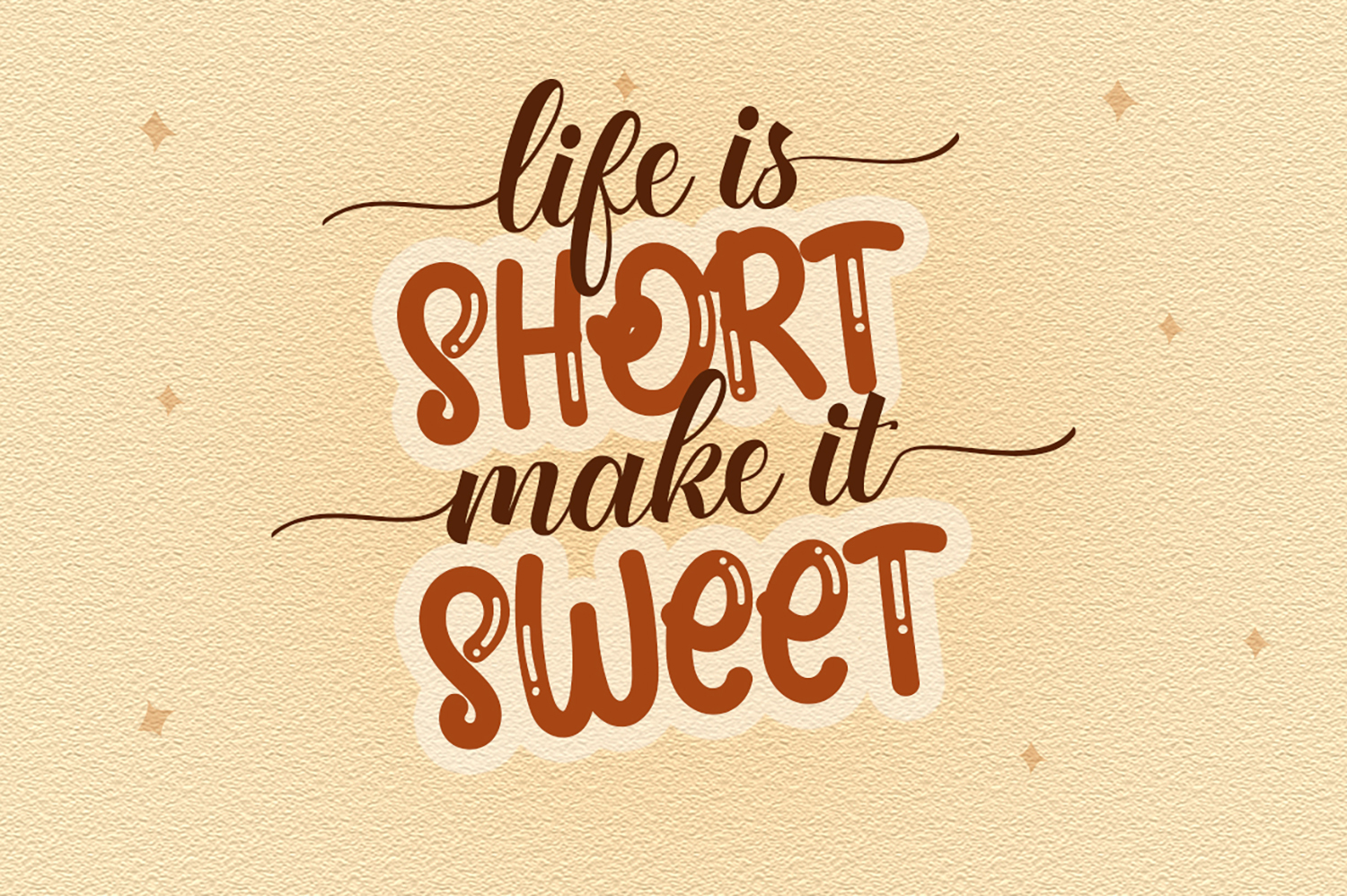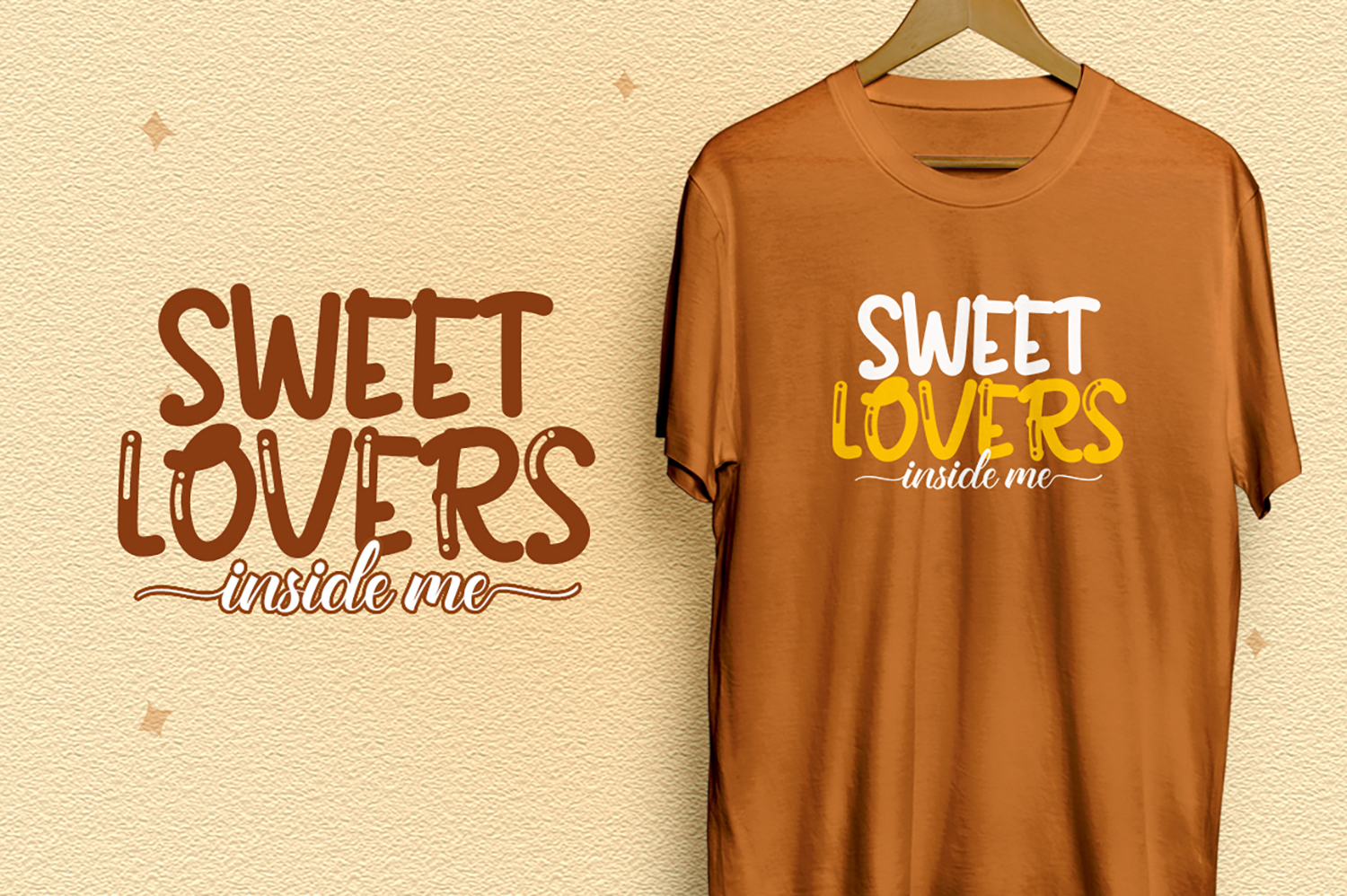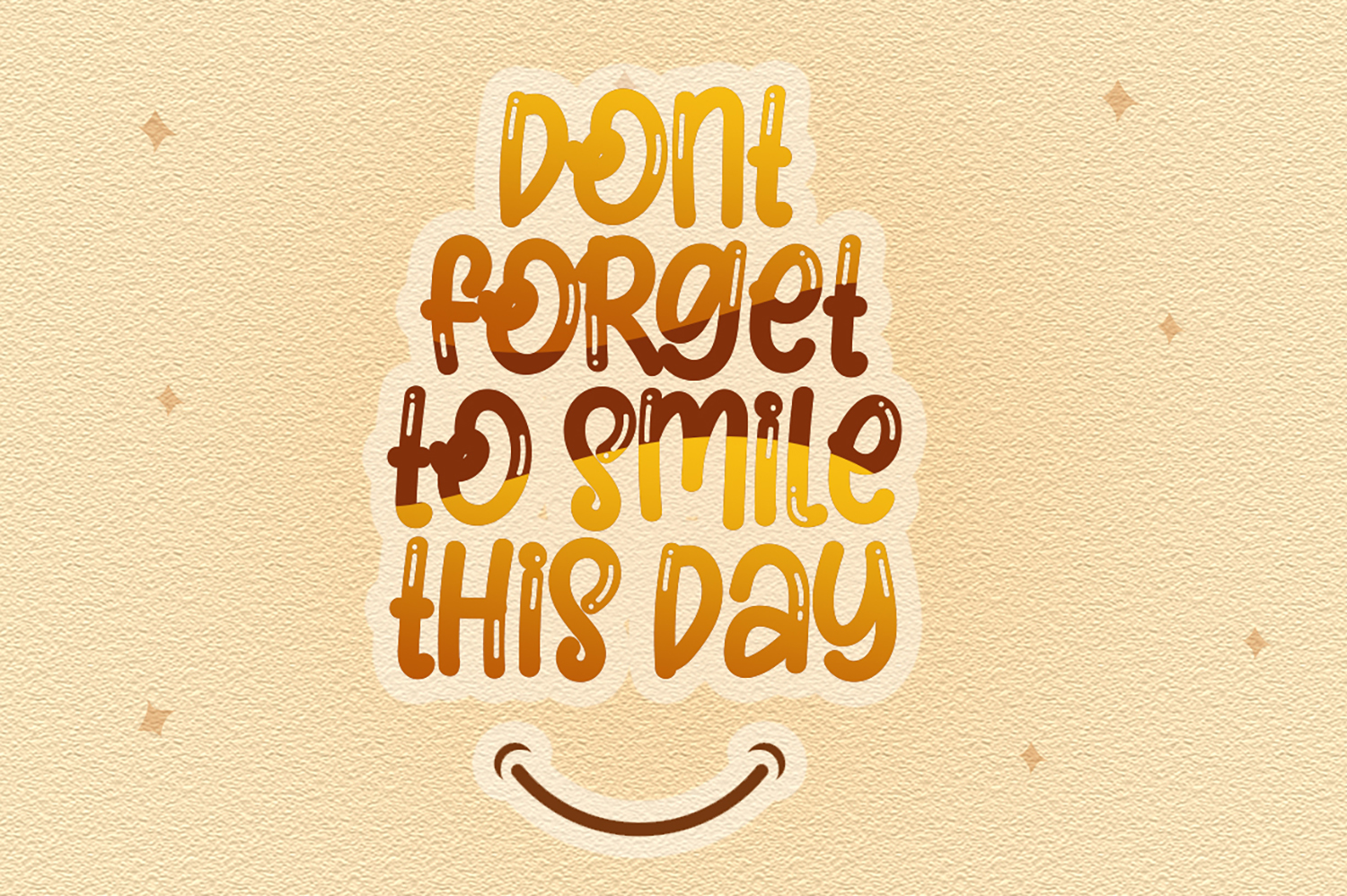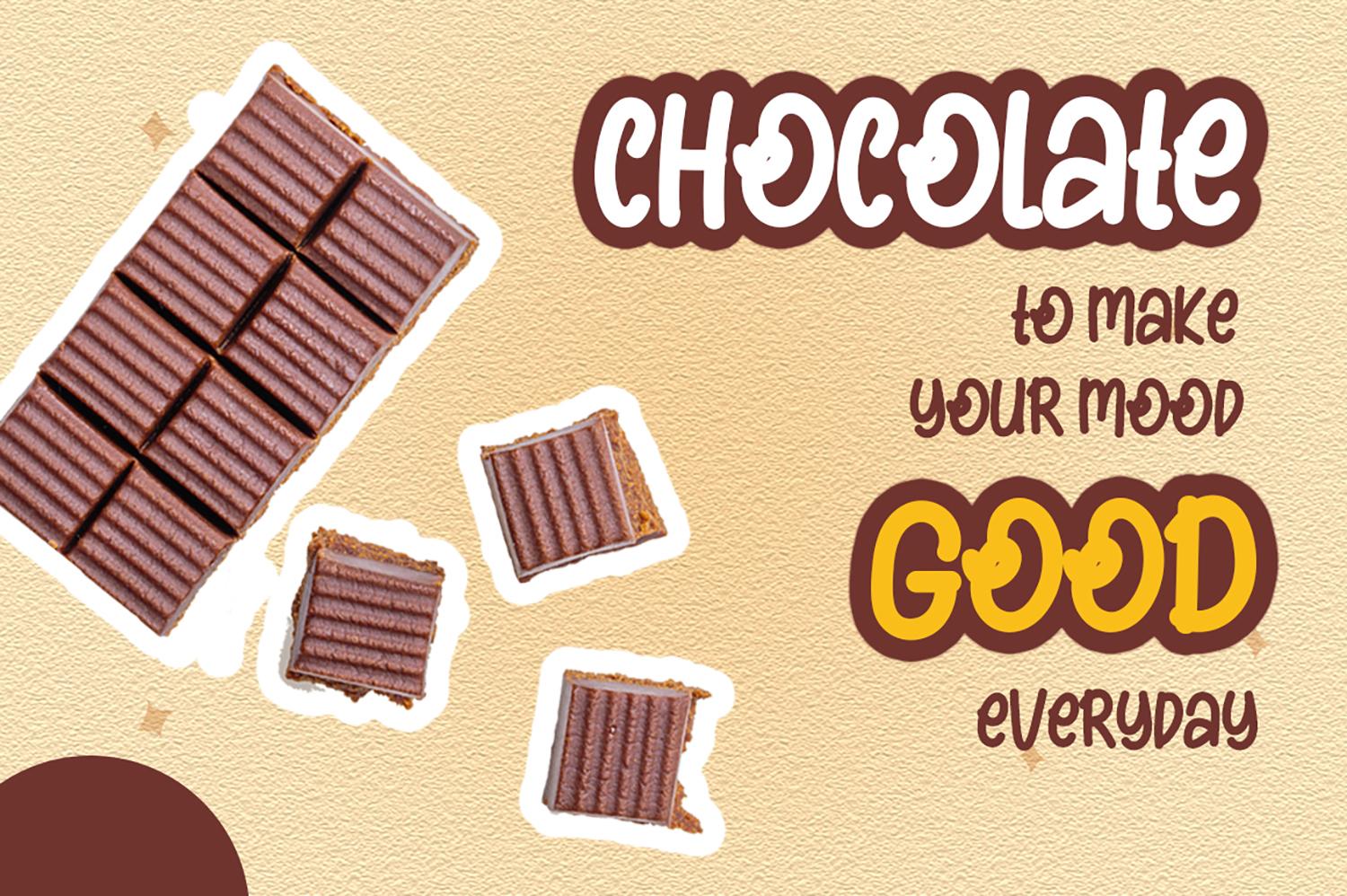
Brown Sugar Handwritten Free Font
Brown Sugar Handwritten Free Font is a cute and quirky display font. It will add an incredibly joyful touch to your designs. Add this beautiful display font to each of your creative ideas and notice how it makes them stand out. This free typeface was designed by a talented Aditya Rezki. If you like it don’t forget to check out the full version.